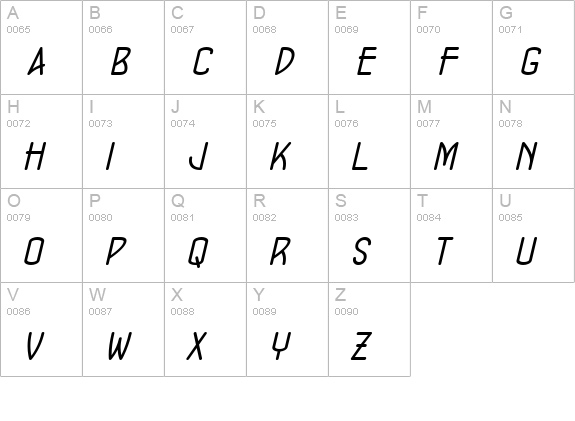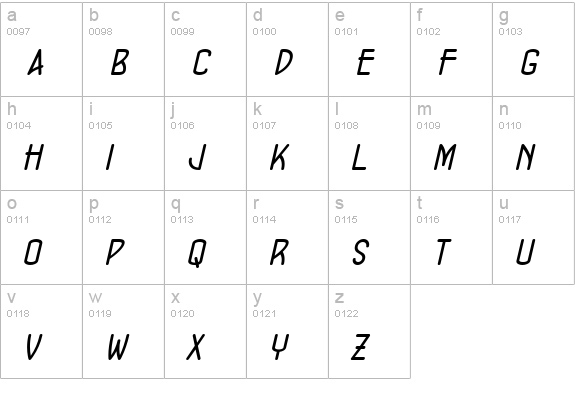
ConcursoModerne BTN Oblique Font Details
ConcursoModerne BTN Oblique is a distinctive, italic variant in the ConcursoModerne typeface family \xE2\x80\x94 well suited to design and typography projects.
ConcursoModerne BTN Oblique font is a sleek and modern typeface that exudes sophistication and elegance. Its unique oblique design adds a touch of dynamism to any design project, making it perfect for branding, editorial work, and more. The font features clean lines and a contemporary aesthetic that is sure to make a statement. What sets ConcursoModerne BTN Oblique font apart is not just its style, but also the fact that it is available for free download at FontsMarket.com. This means that you can easily access this stunning typeface and use it in your projects without any cost. Whether you're a designer looking to elevate your work or a creative enthusiast seeking a fresh font for personal use, ConcursoModerne BTN Oblique font is a fantastic choice that won't break the bank. Don't miss out on this opportunity to enhance your designs with the beautiful ConcursoModerne BTN Oblique font – download it for free today at FontsMarket.com and let your creativity shine!